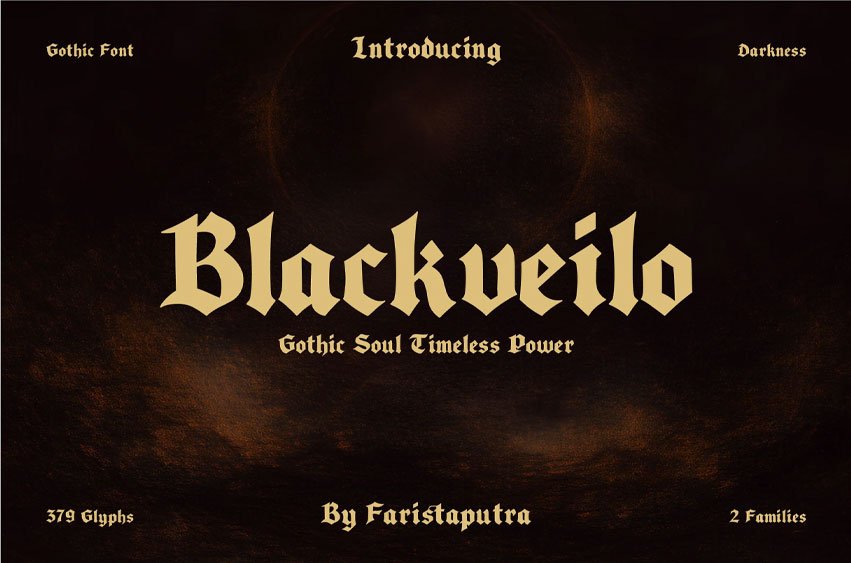
Blackveilo Font is a gothic blackletter display typeface designed to deliver a bold, dark, and timeless visual impact. Inspired by medieval lettering with a strong dramatic presence, this font features sharp letterforms, powerful strokes, and distinctive gothic details that bring depth and character to every design.
Perfect for gothic branding, posters, album covers, logos, packaging, book titles, and other display projects that need a strong and unforgettable look. Blackveilo brings a classic yet commanding aesthetic, making it an ideal choice for designers who want to create dark, bold, and visually striking visual identities.
Features:
- 2 Families
- 379 Glyphs
- Strong gothic blackletter style
- Bold and decorative letterforms
- Suitable for various design projects
Blackveilo is the perfect choice for creating dramatic, dark, and timeless designs with a powerful gothic character.